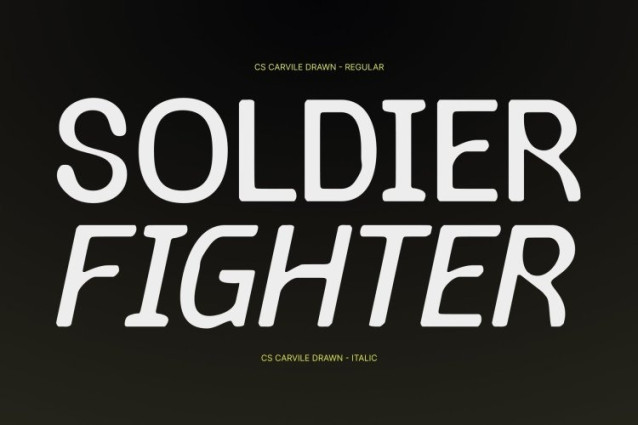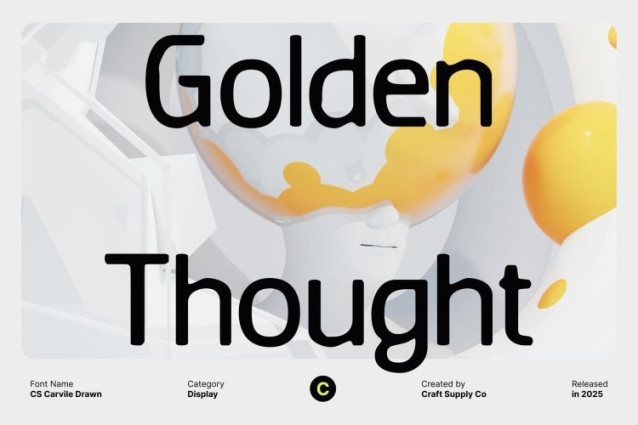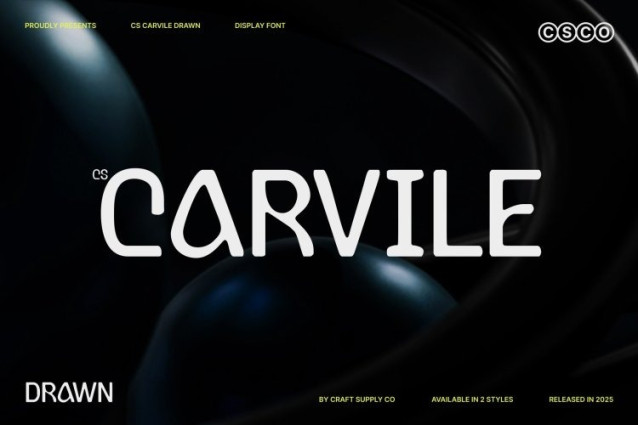
CS Carvile Drawn Font
CS Carvile Drawn Font This is a modern sans serif font defined by clean geometry and beautifully refined curves. Unlike rigid minimalist styles, its gentle flowing shapes introduce warmth and elegance, creating a contemporary visual identity that feels smooth, balanced, and distinctive. Each letterform is carefully sculpted to deliver a modern aesthetic with subtle character.
Professional Appearance with a Calm, Relaxed Feel
Designed to balance clarity and comfort, this font offers a professional look softened by relaxed, friendly curves. The drawn texture enhances its natural charm without disrupting readability, making the font feel approachable, trustworthy, and visually calm. It communicates confidence in a quiet, refined way.
Versatile for Branding and Modern Visual Identities
Highly adaptable across creative fields, this font performs beautifully in branding, editorials, digital interfaces, and social media content. Its clean readability and stylish simplicity make it ideal for lifestyle brands, fashion labels, wellness projects, creative studios, and modern corporate identities seeking a fresh yet professional tone.
Ideal for Headings, Logos, and Thoughtful Designs
Whether used for headlines, logos, posters, or refined promotional materials, this font delivers a harmonious balance of modern simplicity and smooth expression. It’s the perfect choice for designers who want typography that feels relaxed, elegant, and confidently modern.